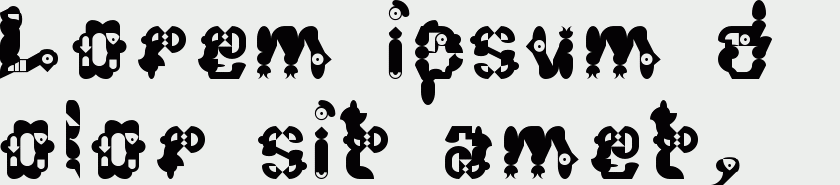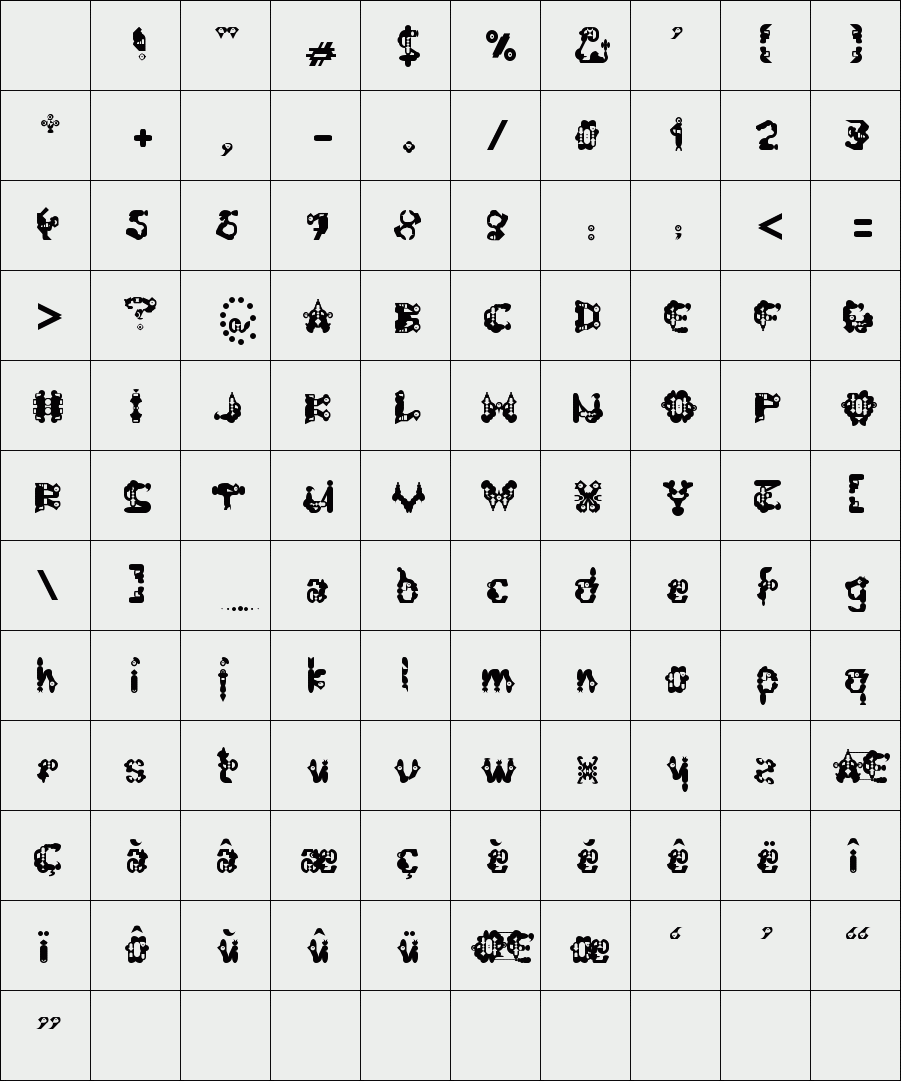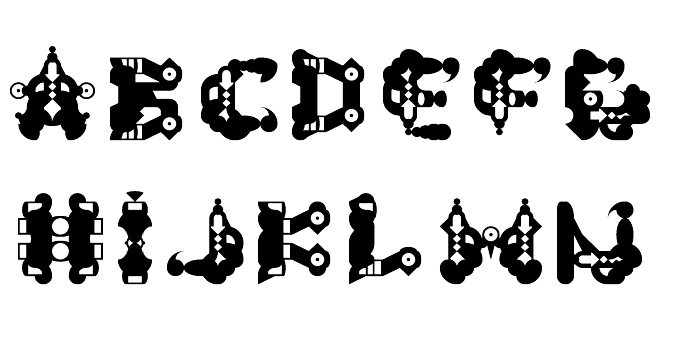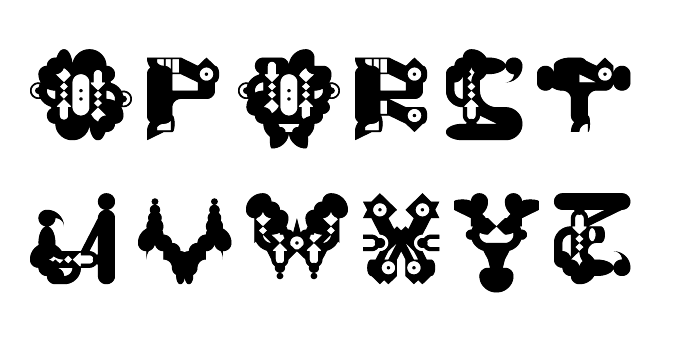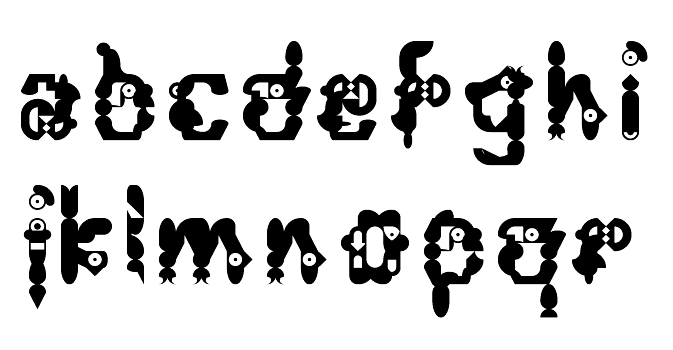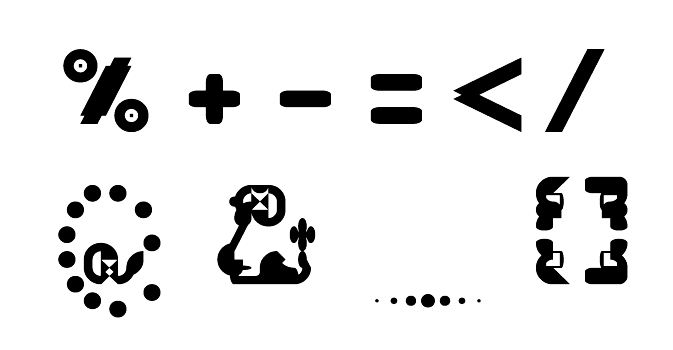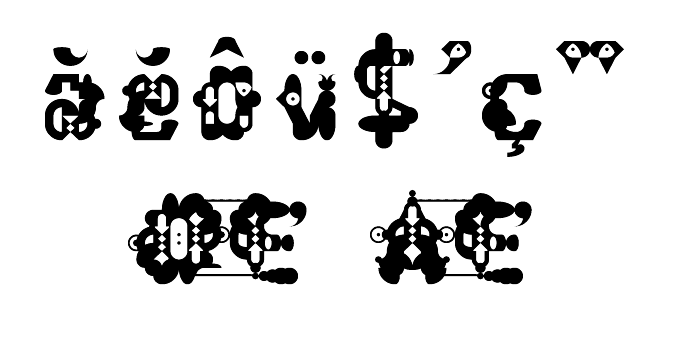
trAUMa 105 / Horns To Come
"Horns To Come", like all the "trAUMa" series, works at the frontier between Art & Type Design, Figuration & Abstraction, each font is a comprehensive world in which every glyph is a "living" entity. But put together they can produce your messages in the most accurate way.